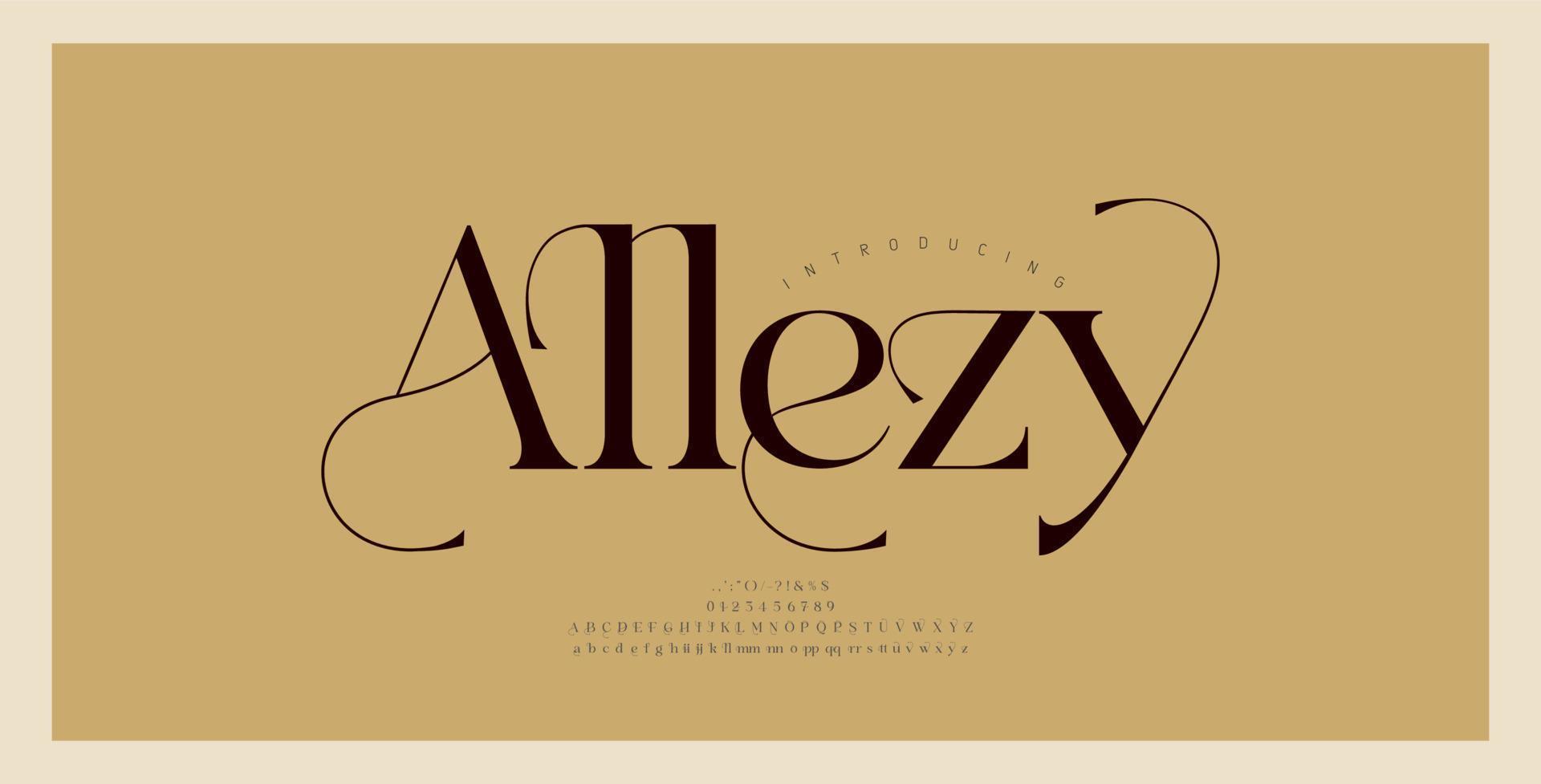
Luxury wedding alphabet letters font with tails. Typography elegant classic serif fonts and number decorative vintage retro concept for logos branding. vector illustration Pro Vector